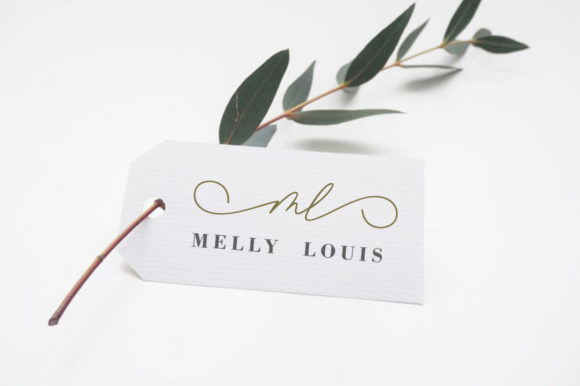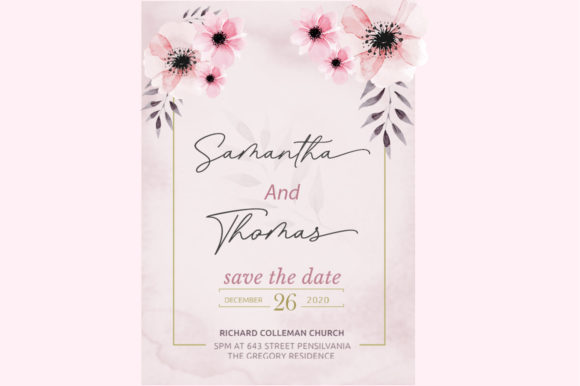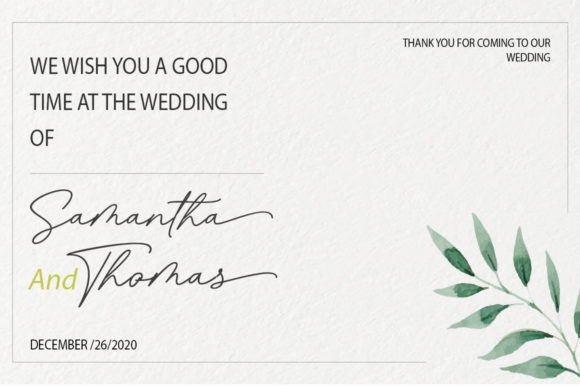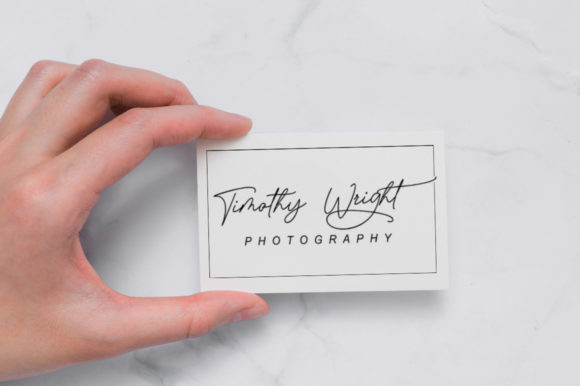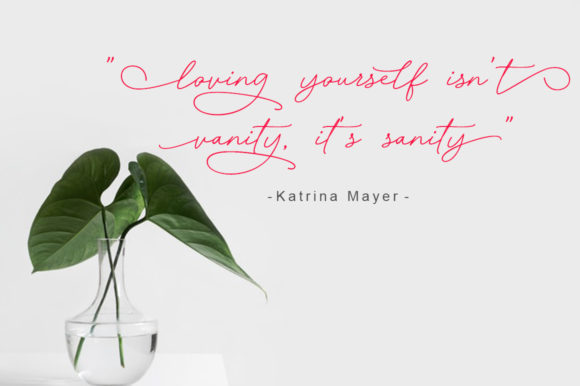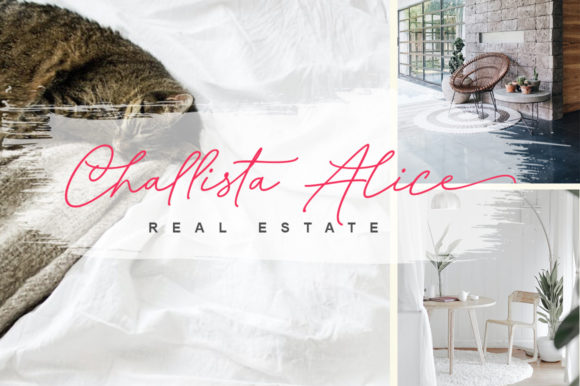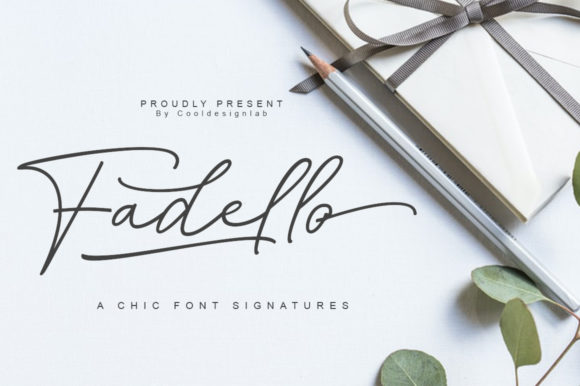
Fadello Font: Elevate Your Design with Elegance and Versatility
In the world of typography, few fonts manage to strike a balance between classic appeal and modern flair. Fadello Font is one such gem that brings a unique blend of traditional typography and contemporary style to the table. Inspired by the timeless elegance of classic typography, Fadello injects its own distinctive personality into any design project, making it a versatile and sought-after font for designers and crafters alike.
The Distinctive Features of Fadello Font
What sets Fadello apart is its exquisite collection of swashes and ligatures. These elements are not just mere additions; they are what transform Fadello into an incredibly versatile script. Whether you’re curating a sophisticated look for an Instagram post or crafting a calligraphy script for a DIY project, Fadello provides the perfect blend of aesthetic appeal and functionality. Its gorgeous swashes and ligatures allow for a high degree of customization, enabling designers to turn any creative idea into a true masterpiece.
Fadello Font boasts PUA (Private Use Area) encoding, a feature that grants users effortless access to all the charming glyphs and swashes. This means that you can easily incorporate the font’s extensive range of special characters into your designs without needing to navigate complex character maps or coding. The PUA encoding ensures that you can focus on the creative aspect of your project, making the design process smoother and more enjoyable.
A Wealth of Special Features
Beyond its swashes and ligatures, Fadello offers a wealth of special features that enhance its usability and aesthetic appeal. One of the key features is the inclusion of alternate glyphs. These variations allow designers to add more personality and uniqueness to their work, ensuring that no two projects look the same. Additionally, the font’s ligatures provide a seamless way to connect letters, creating a fluid and natural look that is perfect for scripts and artistic projects.
Applications of Fadello Font
The versatility of Fadello Font makes it suitable for a wide range of applications. For digital designers, it can elevate Instagram posts, blog headers, and social media graphics, adding a touch of sophistication and elegance. Crafters and DIY enthusiasts will find Fadello to be an invaluable resource for creating personalized stationery, handmade cards, and other paper crafts. The font’s calligraphy-style script also lends itself beautifully to more traditional mediums, such as signage and advertising.
Why Choose Fadello Font?
Choosing Fadello Font for your design projects comes with numerous benefits. Firstly, its unique blend of classic typography and modern elements ensures that your work stands out in a crowded digital landscape. Secondly, the font’s extensive features, including swashes, ligatures, and alternate glyphs, offer endless possibilities for customization. Finally, the PUA encoding makes it incredibly user-friendly, allowing designers of all skill levels to make the most of the font’s capabilities.
| Author | Cooldesignlab |
Fadello Font is more than just a script; it’s a tool for creativity and self-expression. Its inspiration from classic typography, combined with its unique style and extensive features, makes it an invaluable asset for designers and crafters. Whether you’re looking to add a touch of elegance to your digital designs or seeking the perfect script for your next DIY project, Fadello Font is sure to exceed your expectations. With its gorgeous swashes, ligatures, and user-friendly PUA encoding, Fadello is poised to turn any creative idea into a true piece of art.
Incorporate Fadello Font into your design arsenal and discover a world of possibilities where creativity knows no bounds. Its ability to bring a touch of class and uniqueness to any project makes it a standout choice for those who strive for excellence in their craft.